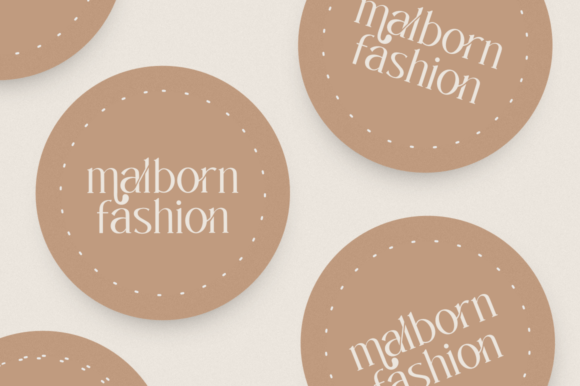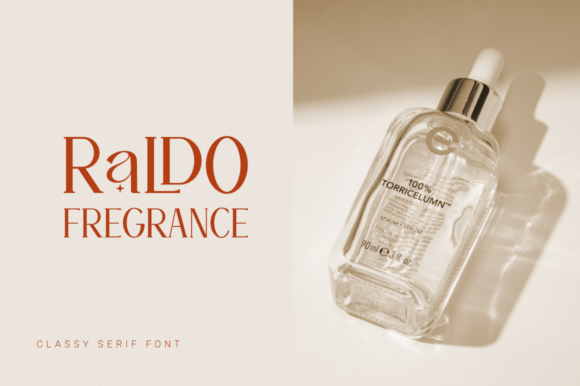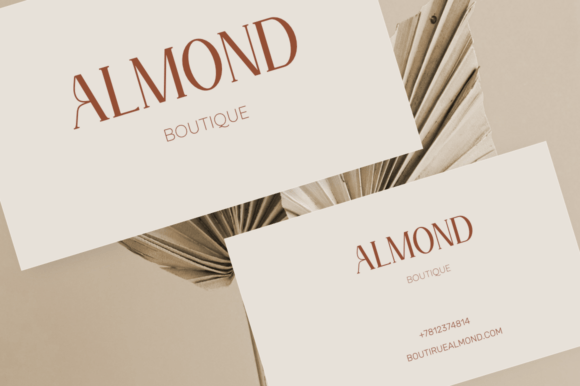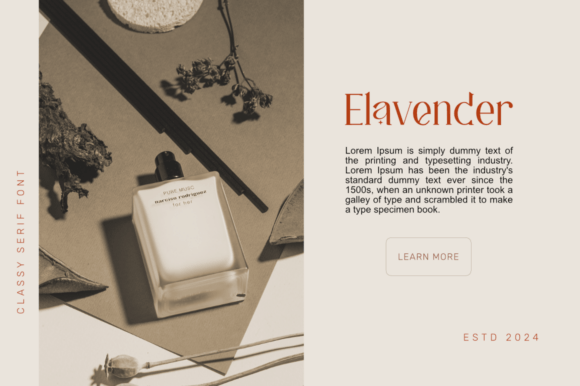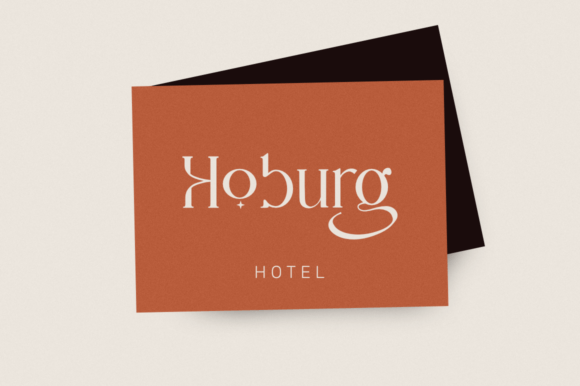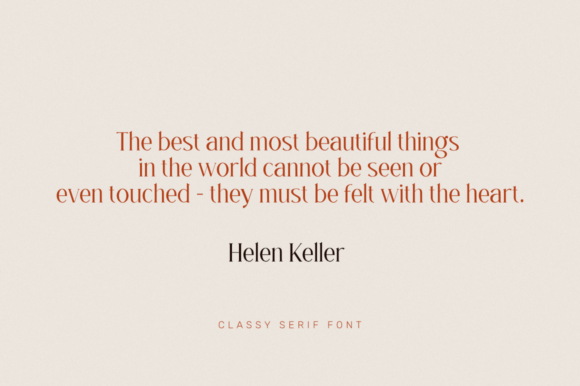
Introduction to Naliada Font
Introducing Naliada, a sophisticated and elegant typeface designed for those who appreciate refined aesthetics in typography.
With its graceful curves and timeless appeal, Naliada is crafted to elevate your projects, whether itโs in the realms of fashion, wedding design, or modern typography Perfectly suited for high-end branding, Naliada exudes a sense of luxury and elegance, making it an ideal choice for wedding invitations, fashion editorials, and logo designs.
Key Features of Naliada Font
Why Choose Naliada Font?
Naliada Font offers exceptional quality and versatility, making it a valuable addition to your design toolkit. Whether you’re creating for personal projects or commercial use, Naliada Font delivers professional results.